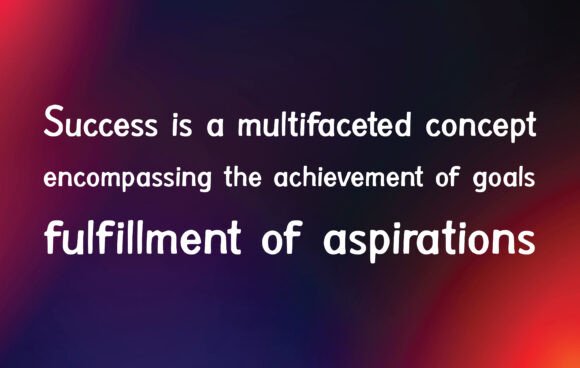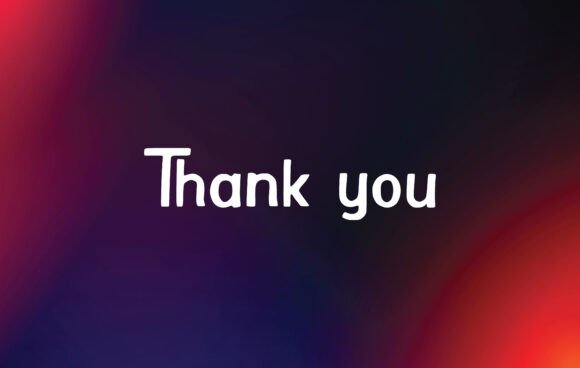
Introduction to Perignon Font
Have you ever found yourself staring at a blank canvas, waiting for that perfect spark to ignite your creative project? For designers, this moment is all too familiar. It’s the moment when the right tool can make all the difference between a mediocre design and a masterpiece. For those who’ve been searching for the perfect handwritten font to elevate their work, we’re excited to introduce you to the Perignon Font – a stunning and versatile font that’s sure to take your creative ideas to new heights.
With its elegant and refined style, the Perignon Font is a game-changer for designers looking to create eye-catching logos, branding, and quotes. Whether you’re working on a high-quality design project or need a reliable design resource, this font is sure to impress. Plus, with its transparent background and free download option, you can get started right away and explore the endless possibilities of what you can create.
Key Features of Perignon Font
- High-quality font designed for creative projects, suitable for use in logos, headings, and titles.
- Supports transparent background, allowing for seamless integration with various design elements.
- Includes a wide range of glyphs, making it suitable for use in various languages and scripts.
- Available in a single weight, providing a clean and minimalist aesthetic for creative projects.
Honest Review: Perignon Font
As a designer, I’m always on the lookout for high-quality design resources to elevate my creative projects. The Perignon Font is one such resource that caught my attention. Let’s dive into my honest review.
- ✨ Unique and elegant design: The Perignon Font boasts a sophisticated and refined aesthetic that’s perfect for high-end projects.
- ✨ High quality: The font is incredibly detailed, with crisp lines and a smooth texture that makes it a joy to work with.
- ⚠️ Limited language support: Unfortunately, the Perignon Font only supports a limited range of languages, which might be a drawback for designers working on projects that require multilingual support.
- ⚠️ Not suitable for casual use: While the font is stunning, it’s not ideal for everyday use due to its complex design.
Overall, I’m impressed with the Perignon Font’s quality and versatility. It’s an excellent choice for designers working on high-end creative projects, but may not be the best fit for casual or everyday use.
Perignon Font
The Perignon Font is ideal for a variety of creative projects, including logos, graphics, presentations, and documents. Its high-quality design and transparent background make it a great resource for designers and non-designers alike.